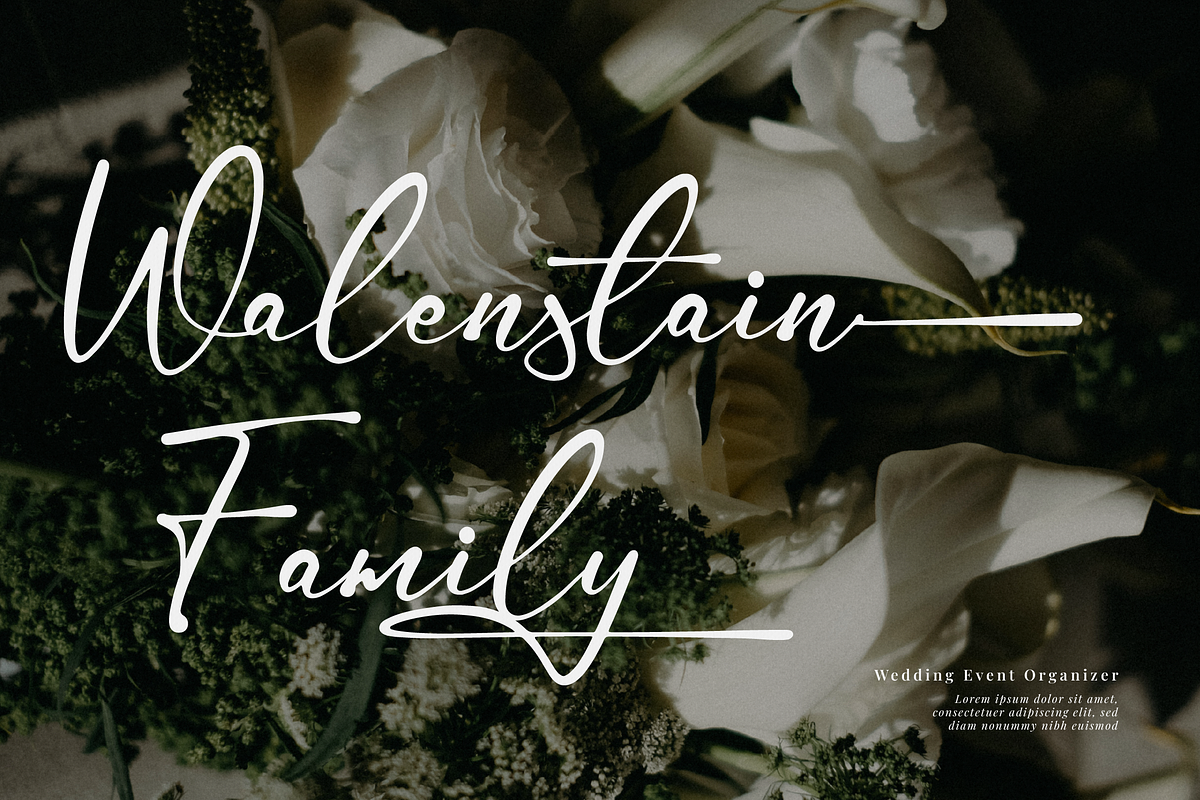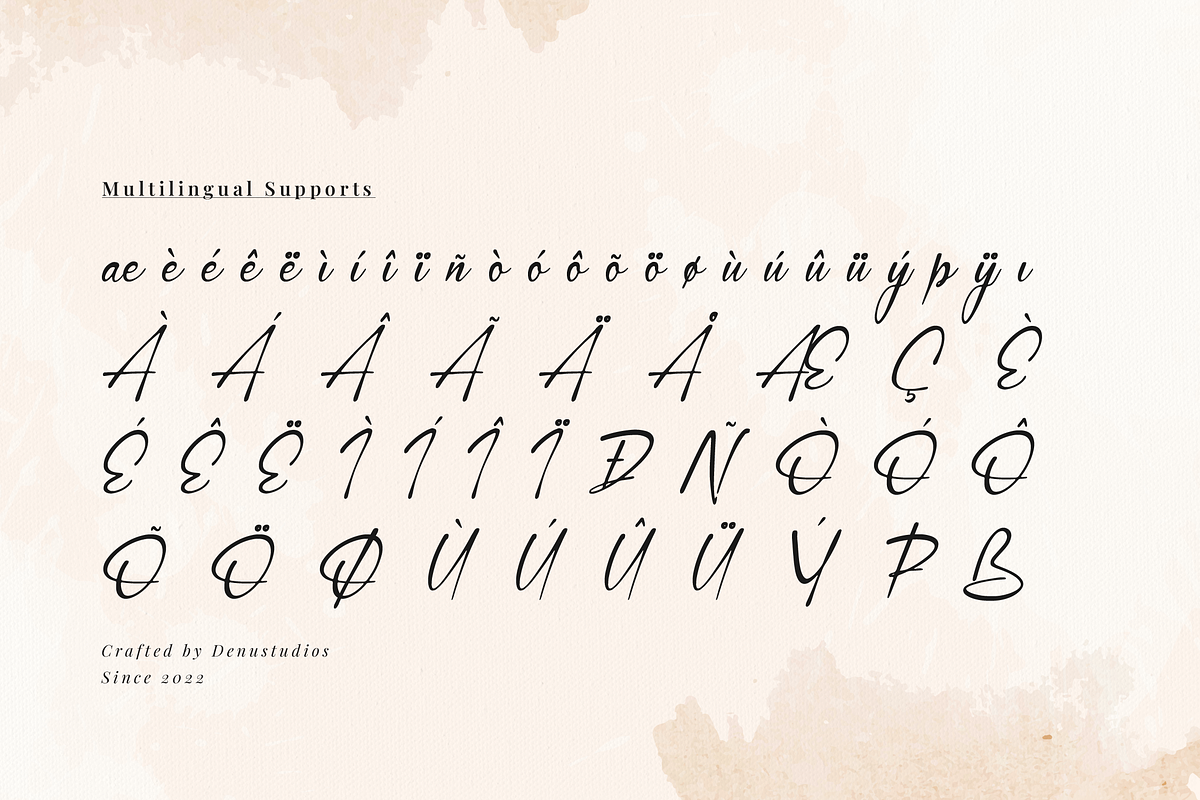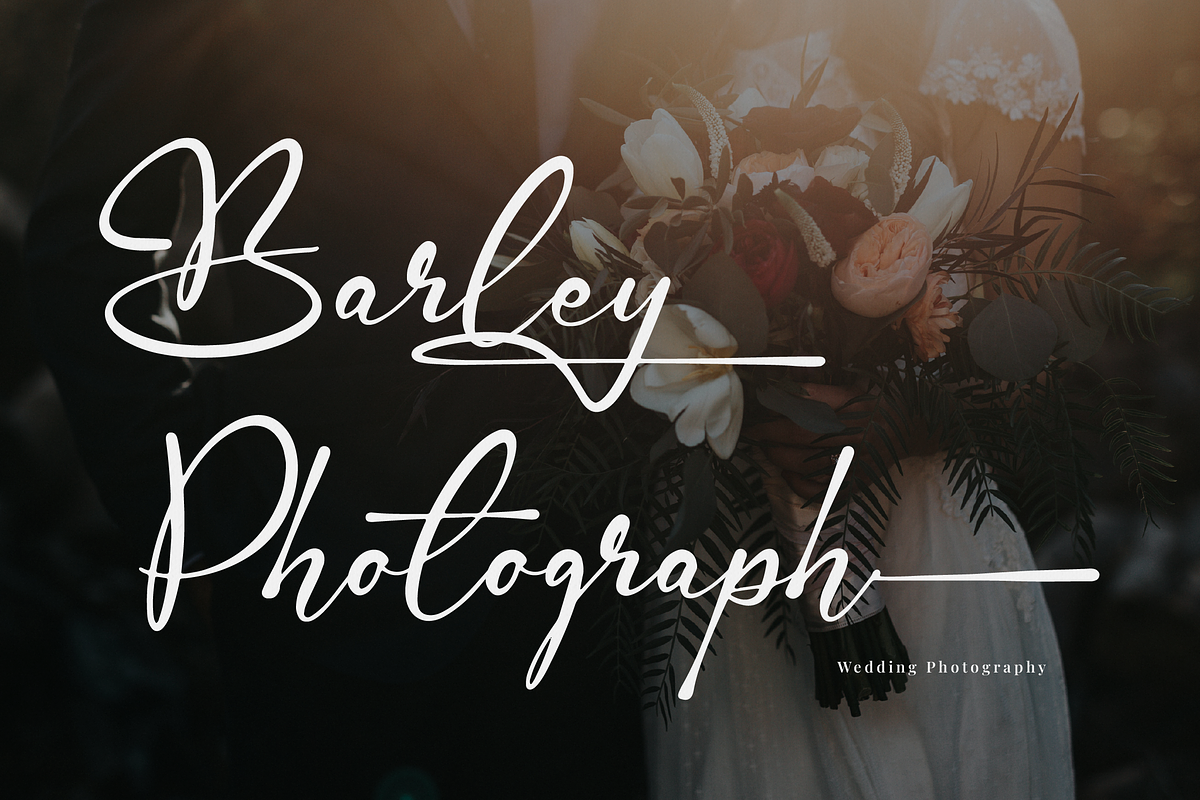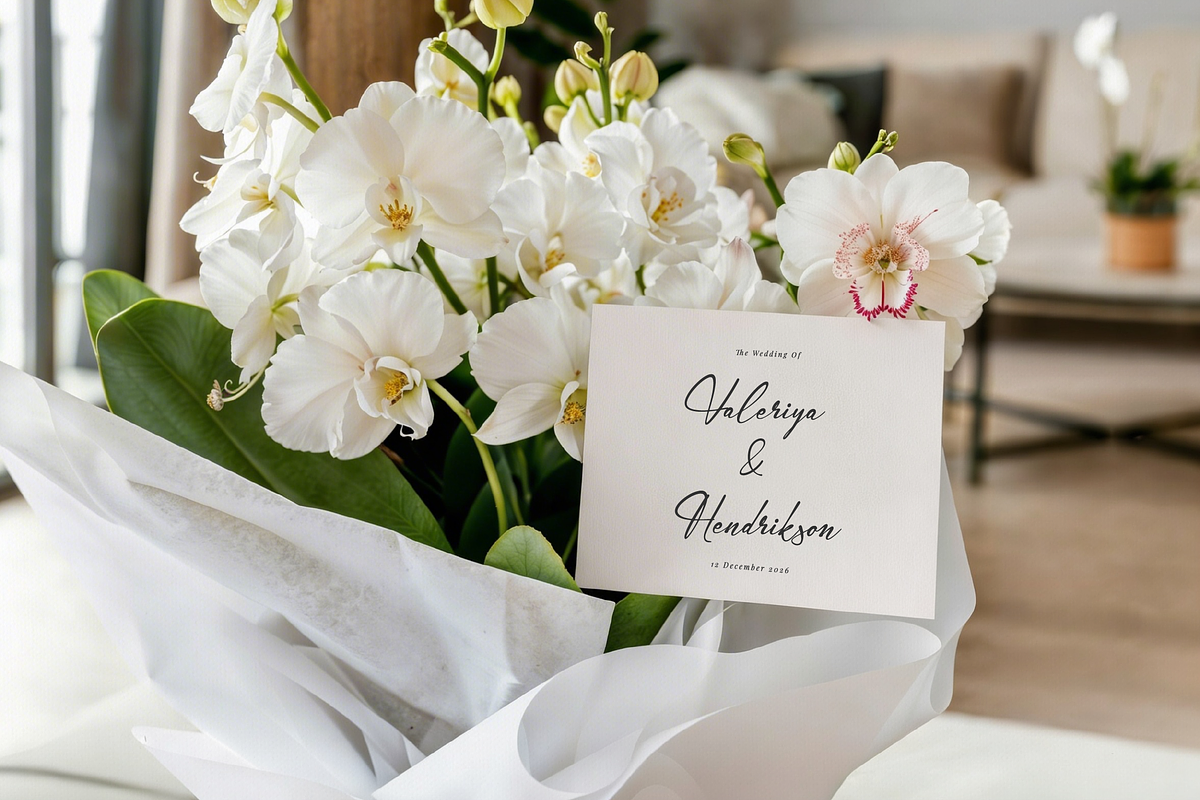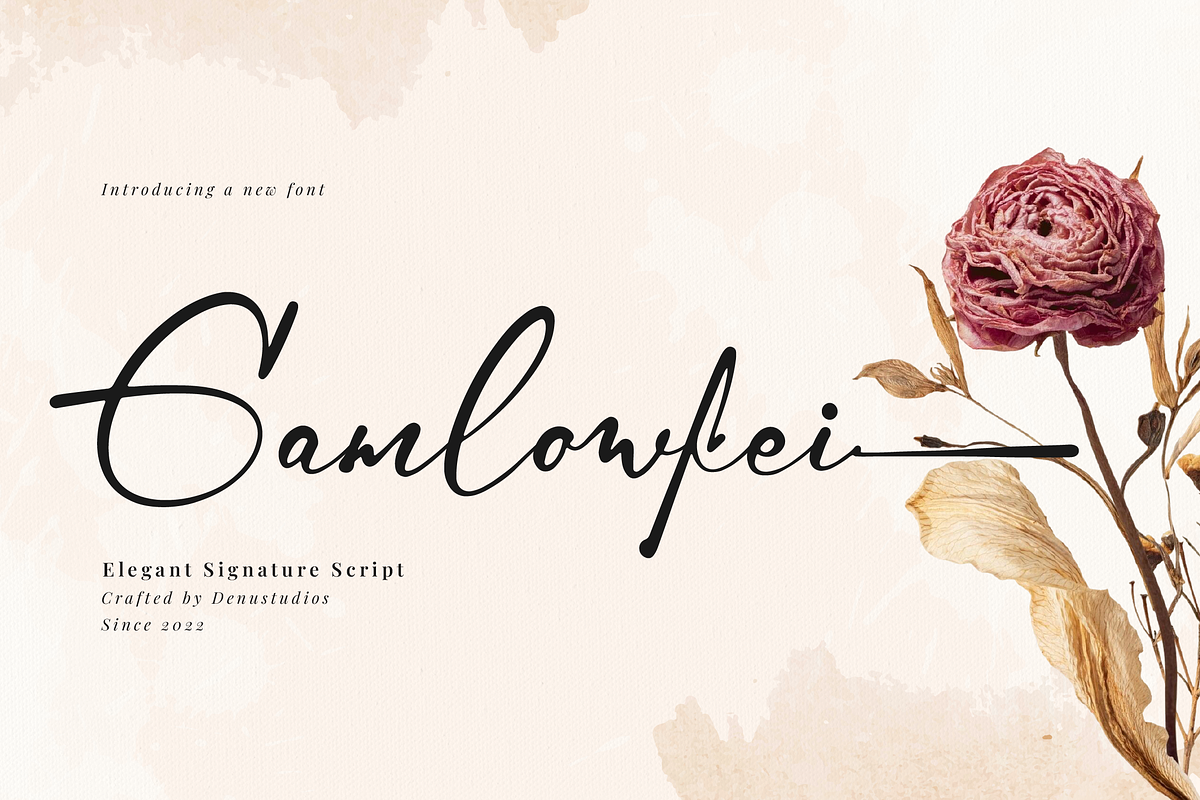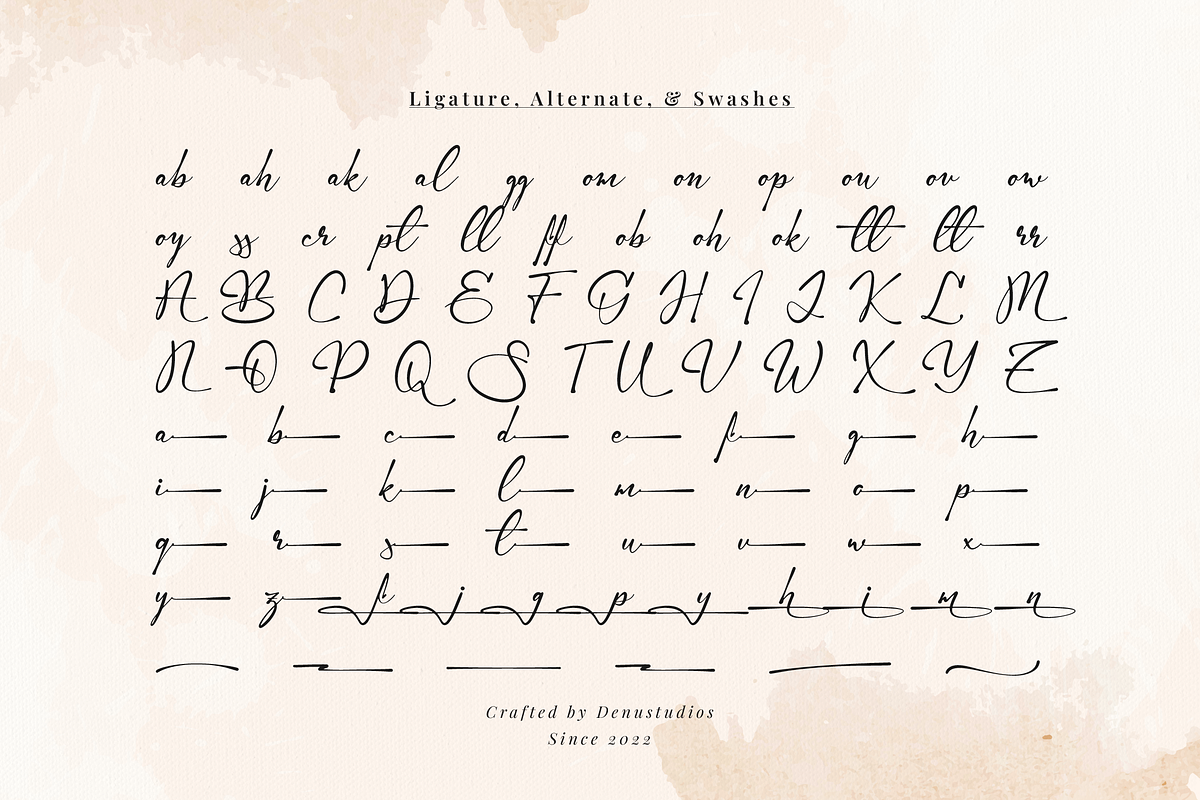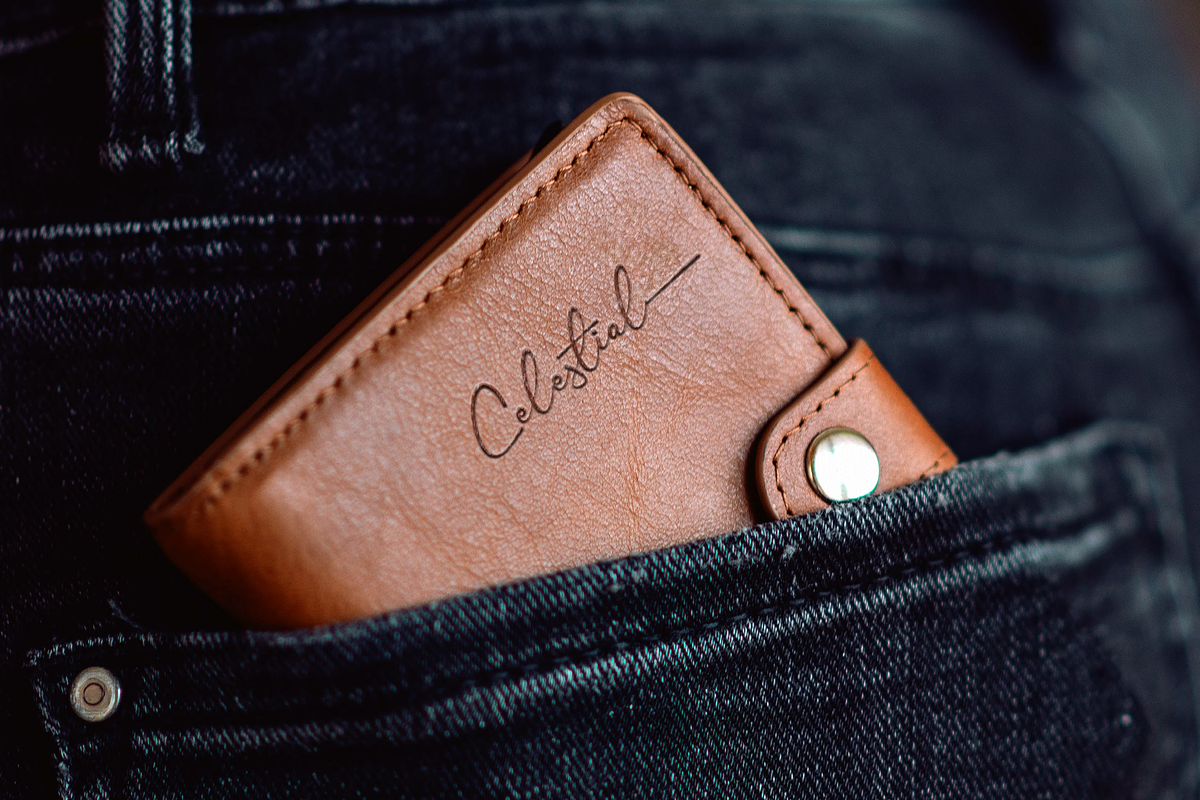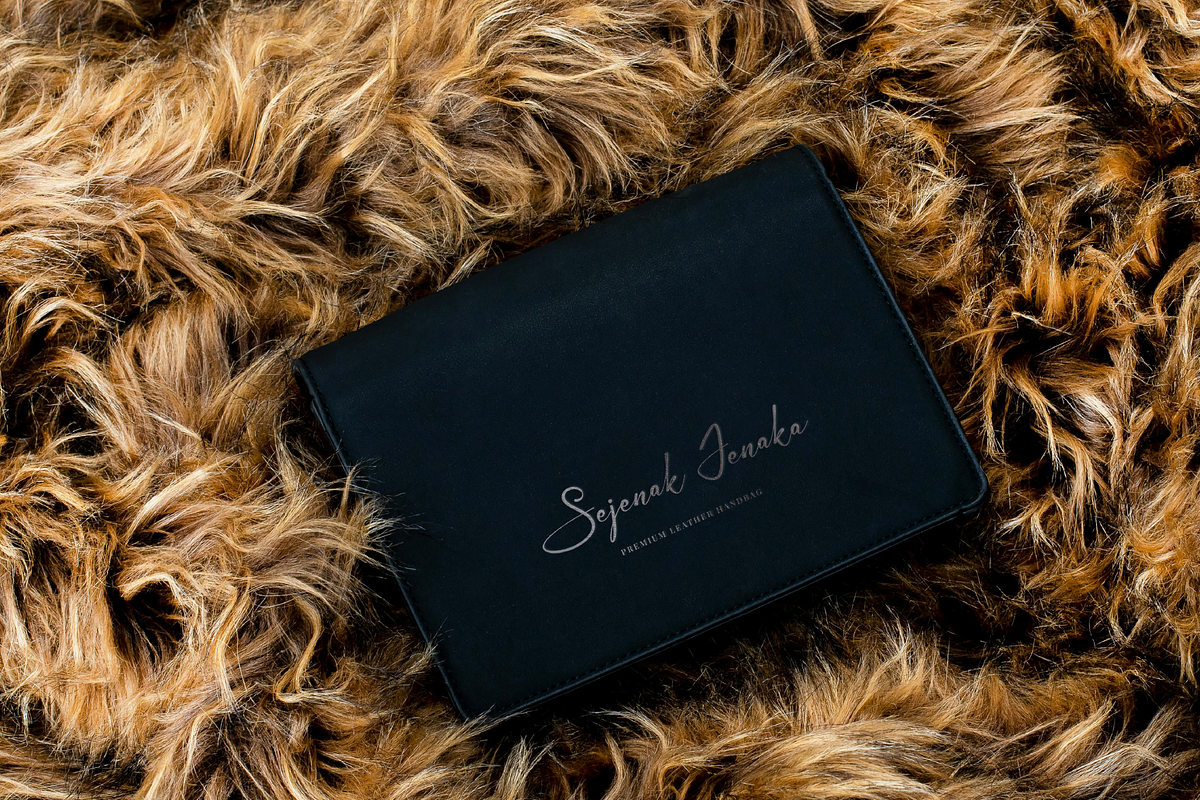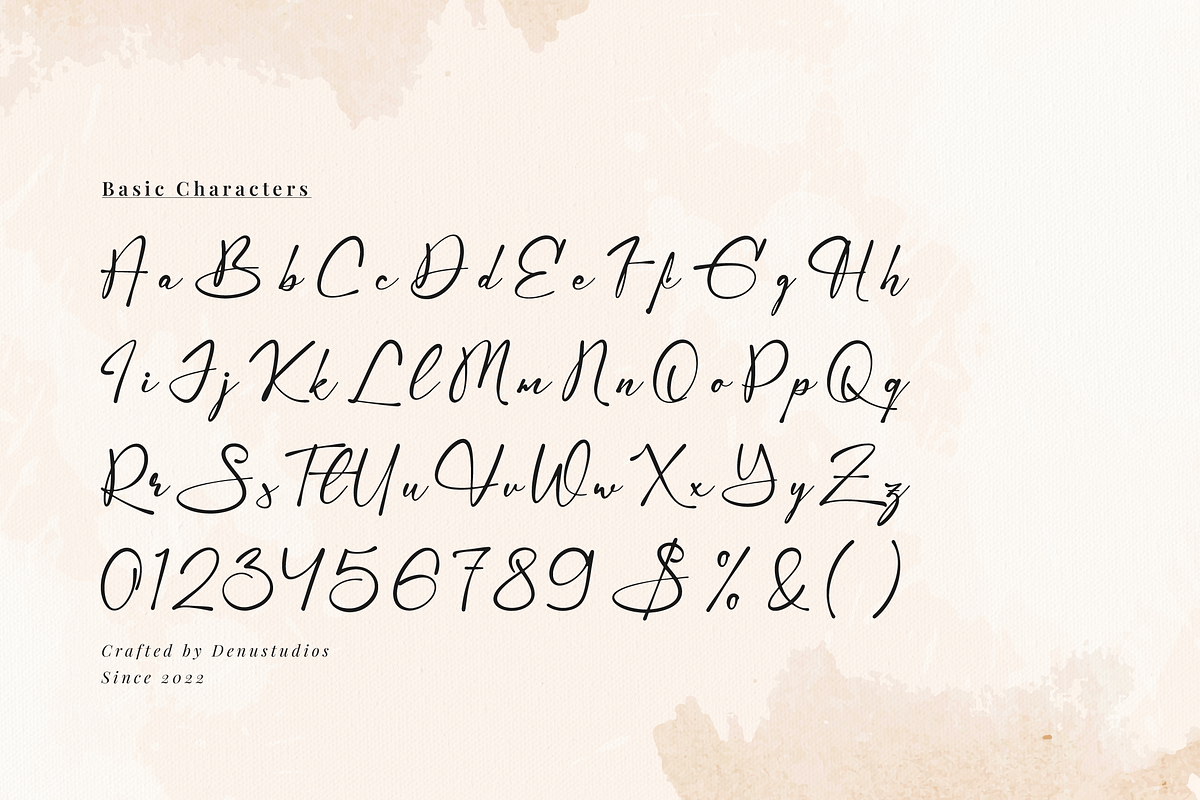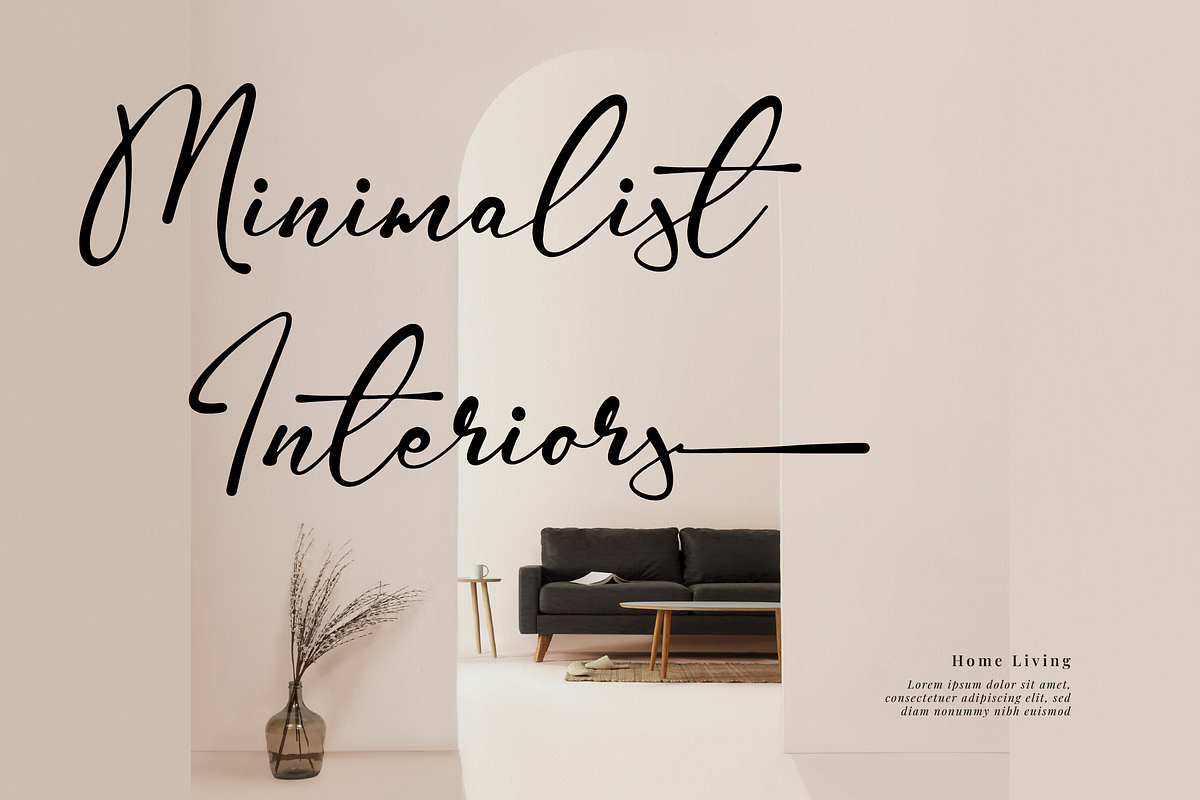
Gamlowfei | Elegant Signature
Gamlowfei | Elegant Signature, from Denustudios, suitable for any projects such as: logos, branding projects, homeware designs, product packaging, mugs, quotes, posters, shopping bags, t-shirts, book covers, name card, invitation cards, greeting cards, label, photography, watermark, special events, and all your other lovely projects that need a Script taste.